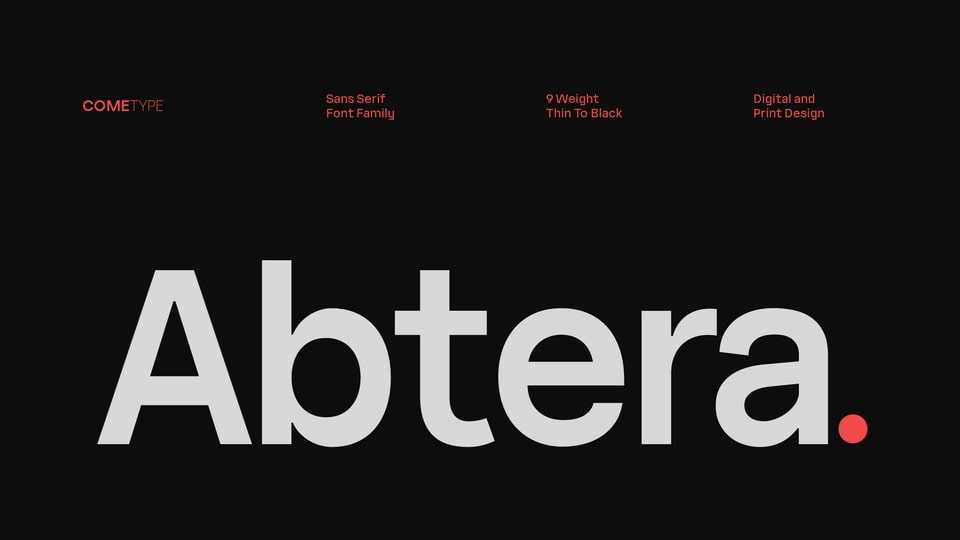
Download Abtera font, a sleek and modern sans-serif typeface designed to bring clarity and sophistication to your projects. Abtera offers exceptional versatility for various design needs.
Designer: ComeType